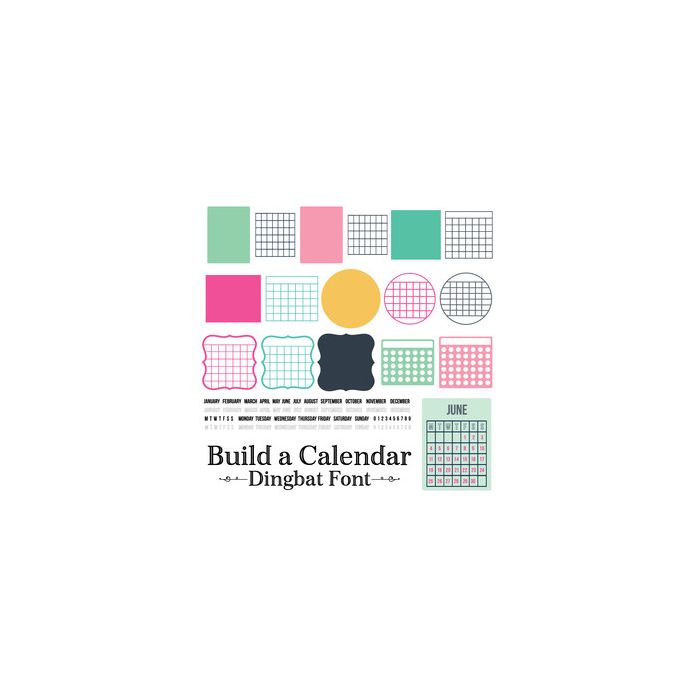
Build a Calendar Dingbat Planner Font. Includes 16 grids and shapes to build your calendar cards on, months, days of the week, day letters and numbers to build your own calendar cards, stickers or grids! Perfect for planning and planners, scrapbook page elements, life journaling and embellishments, craft projects and more! For more design ideas, coordinating designs & products and inspiration, please visit my blog http://www.sarahhurleyblog.com